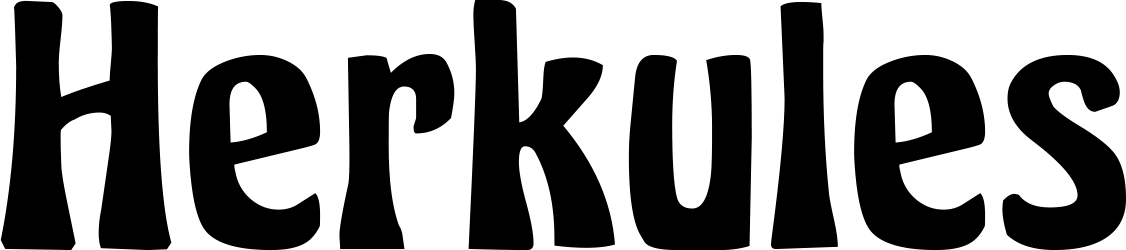
Herkules Font
Designed byDieter Steffmann
Herkules is a retro font in which all characters have a special angle alongside the high readability and eye-catching look that can convey a sense of innovation, joy, and youth to the audience, thereby increasing the efficiency of your content. It is ideal to use in graphic works such as designing brochures and banner ads.